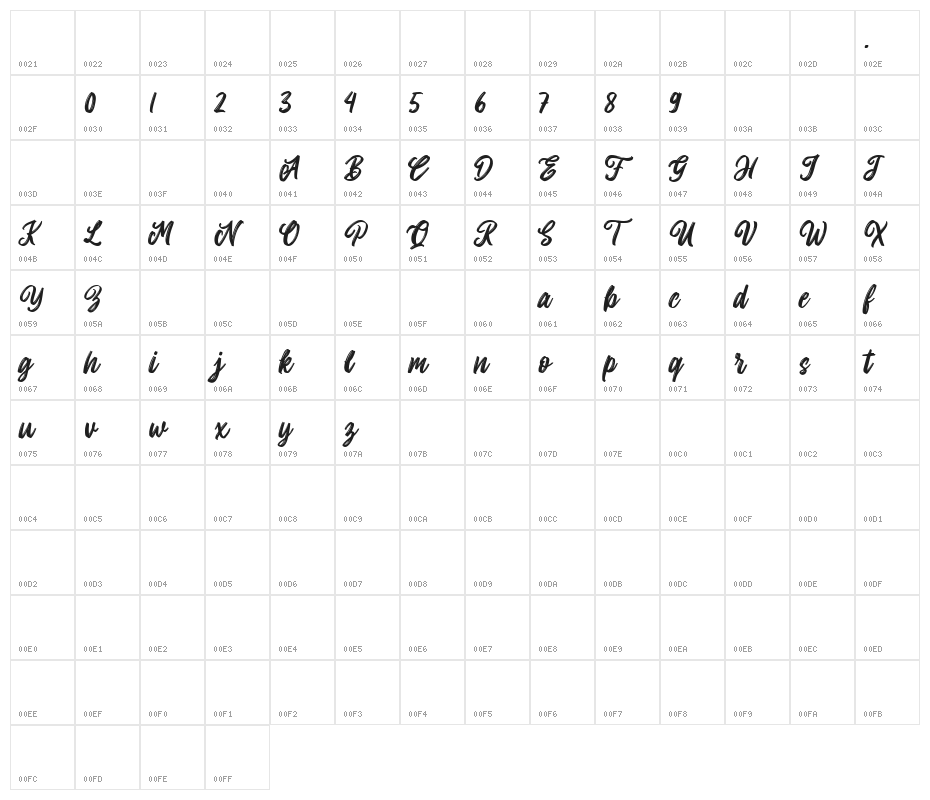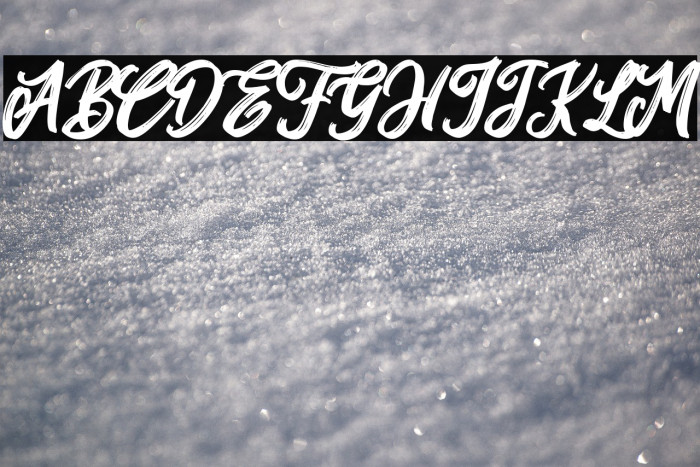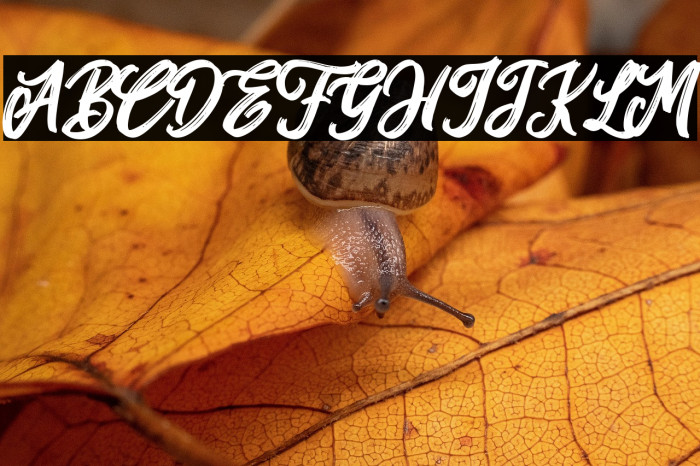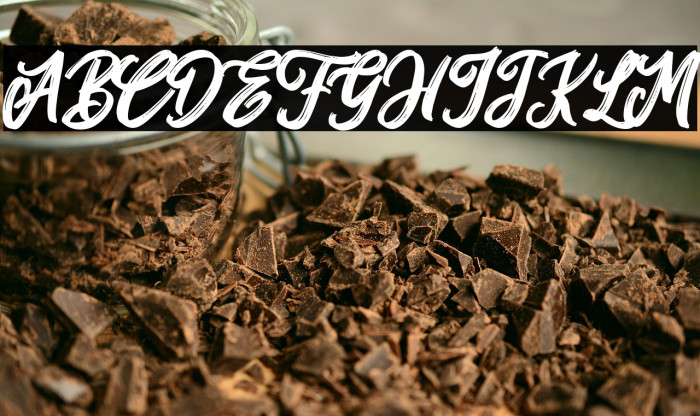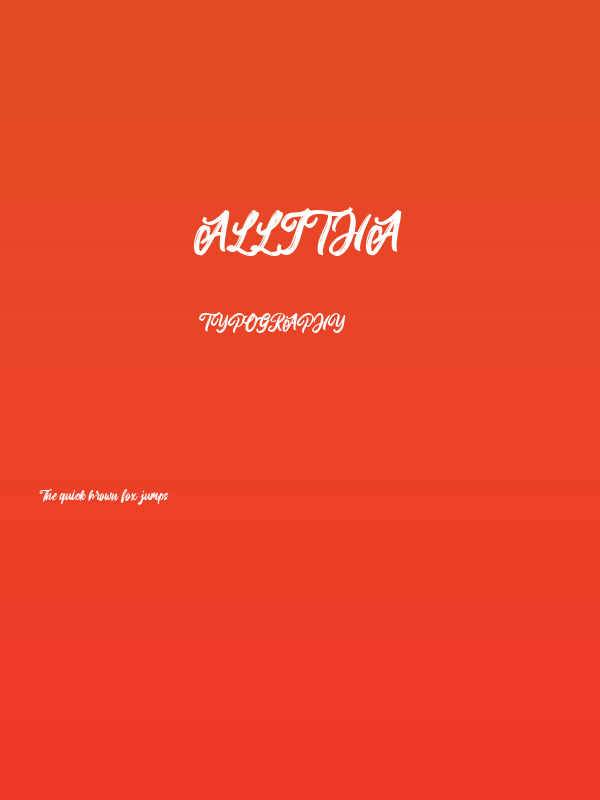
Allitha Font
Allitha Description
This font features a bold and expressive script style with a dynamic flow. The characters are connected, giving it a handwritten appearance, yet it maintains a structured and consistent form. The strokes are thick and exhibit a high contrast, enhancing its boldness and making it stand out. The uppercase letters are particularly ornate, with flourishes that add a touch of elegance. The lowercase letters maintain a smooth and fluid connection, making it ideal for creating a personal and inviting feel. The numbers and special characters are equally stylized, ensuring uniformity across all elements.
| Use Case | Logos, Headlines, Invitations |
| Proposed Projects | Ideal for wedding invitations, branding projects, logo design, and greeting cards. |